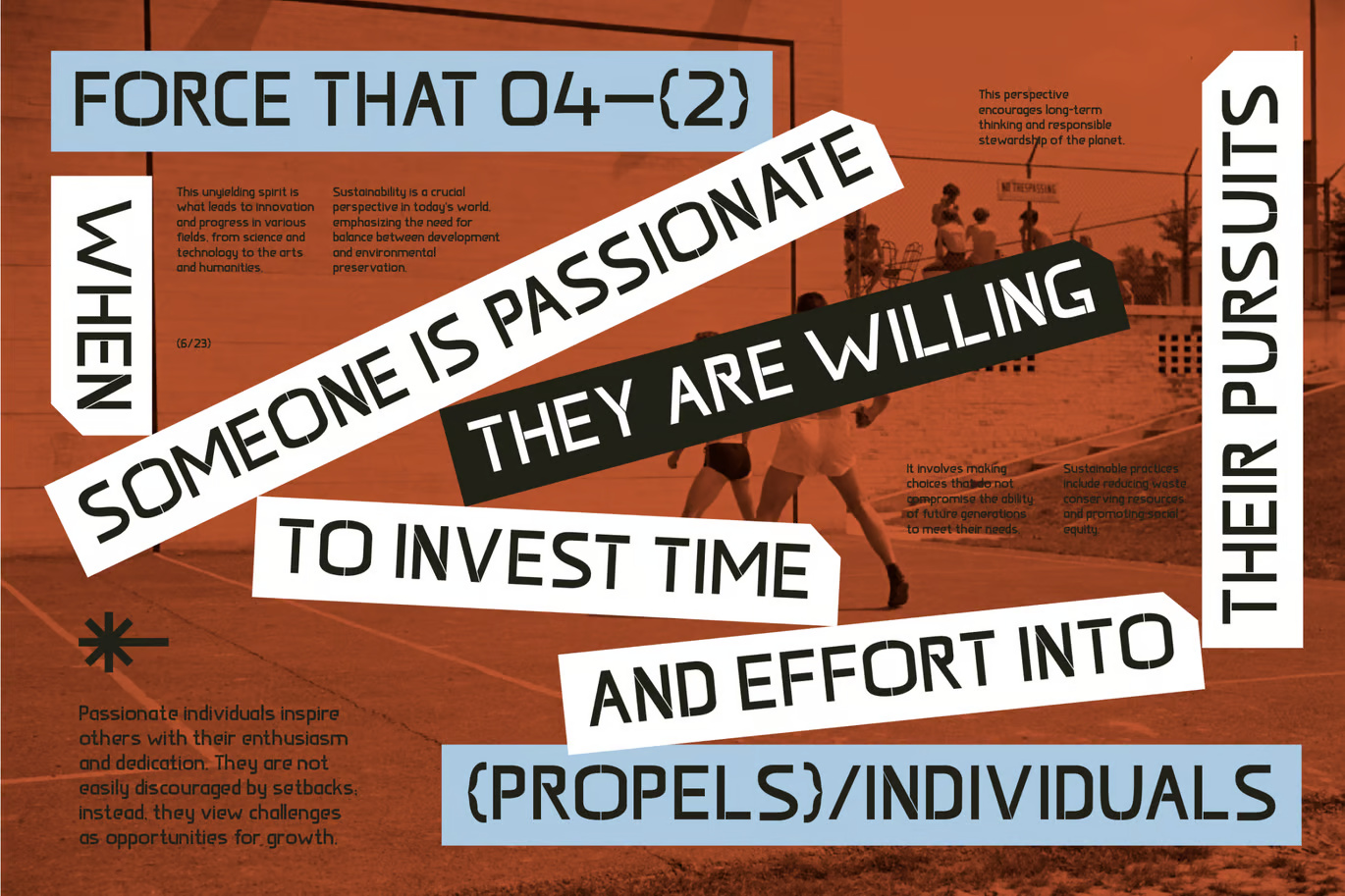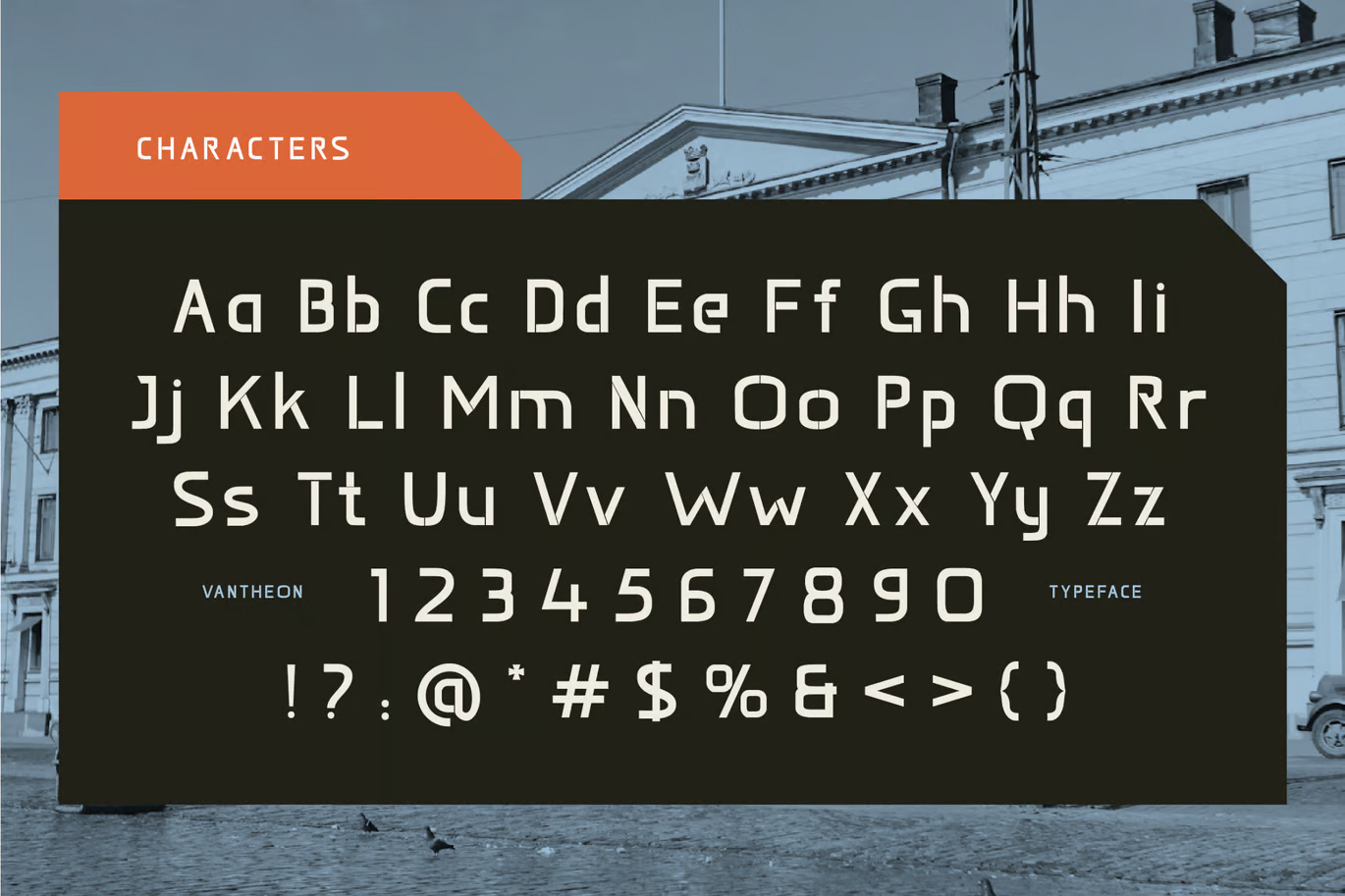
Vantheon Font
Elevate your designs with Vantheon Sans Serif Font, a modern and sophisticated typeface that adds elegance and style to any project. With its clean lines and versatile design, it’s perfect for quotes, logotypes, magazine headers, branding, and more. This stylish font ensures your text stands out beautifully with a contemporary touch.
Vantheon Sans Serif Font